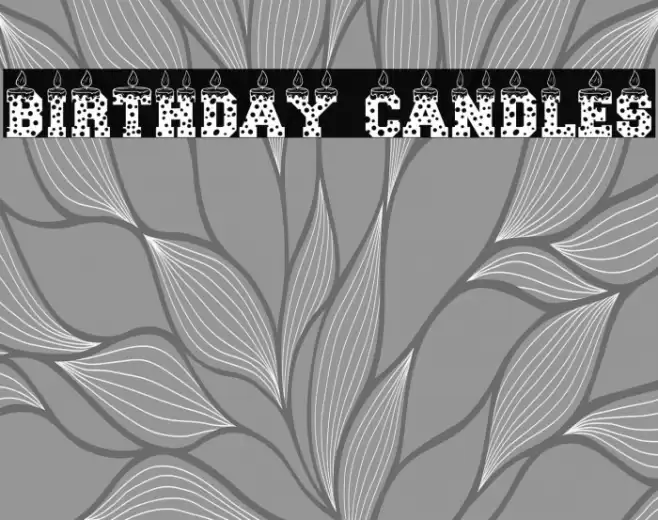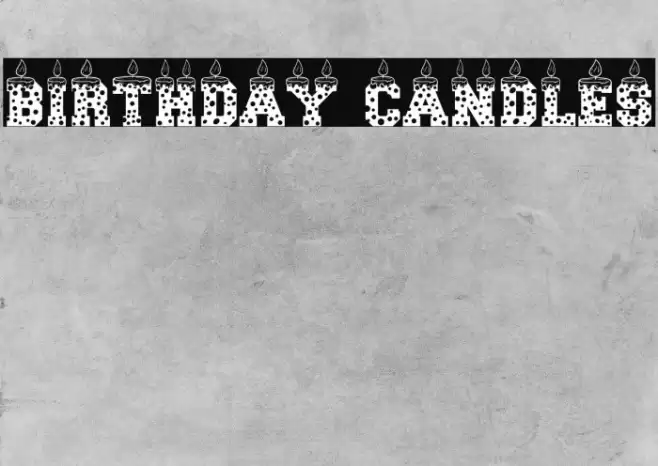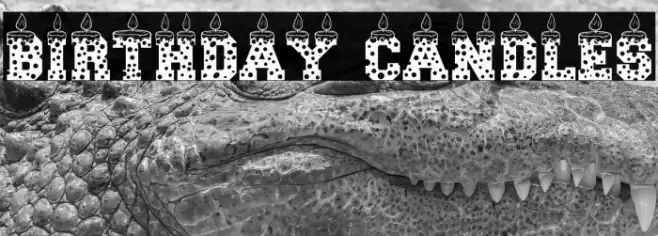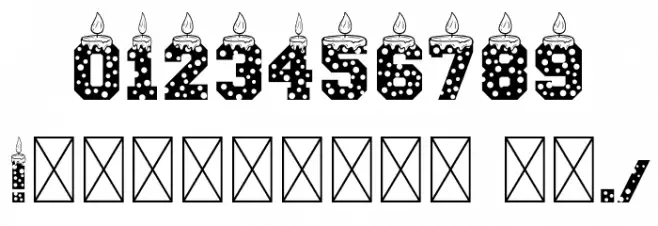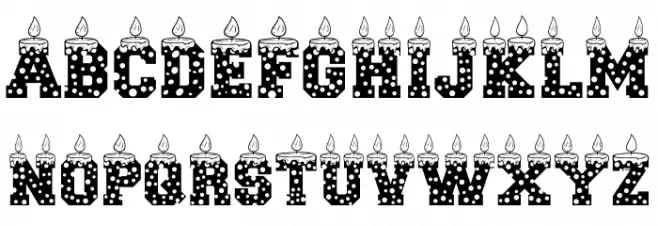
Birthday Candles Font
Birthday Candles Description
This playful and whimsical font features letters designed to resemble birthday candles, complete with a flame on top of each character. The characters are bold and decorated with polka dots, adding a festive and cheerful vibe. The font is highly decorative, making it ideal for celebratory themes. Each letter is distinct, with a three-dimensional appearance that enhances its playful nature. The font's unique style captures the essence of a birthday celebration, making it perfect for party invitations, greeting cards, and festive banners.
A playful, candle-themed decorative font with polka dots and flames from Decorative fonts.
- Font: Birthday Candles
- Proposed Projects: Ideal for birthday invitations, party decorations, greeting cards, and festive banners.